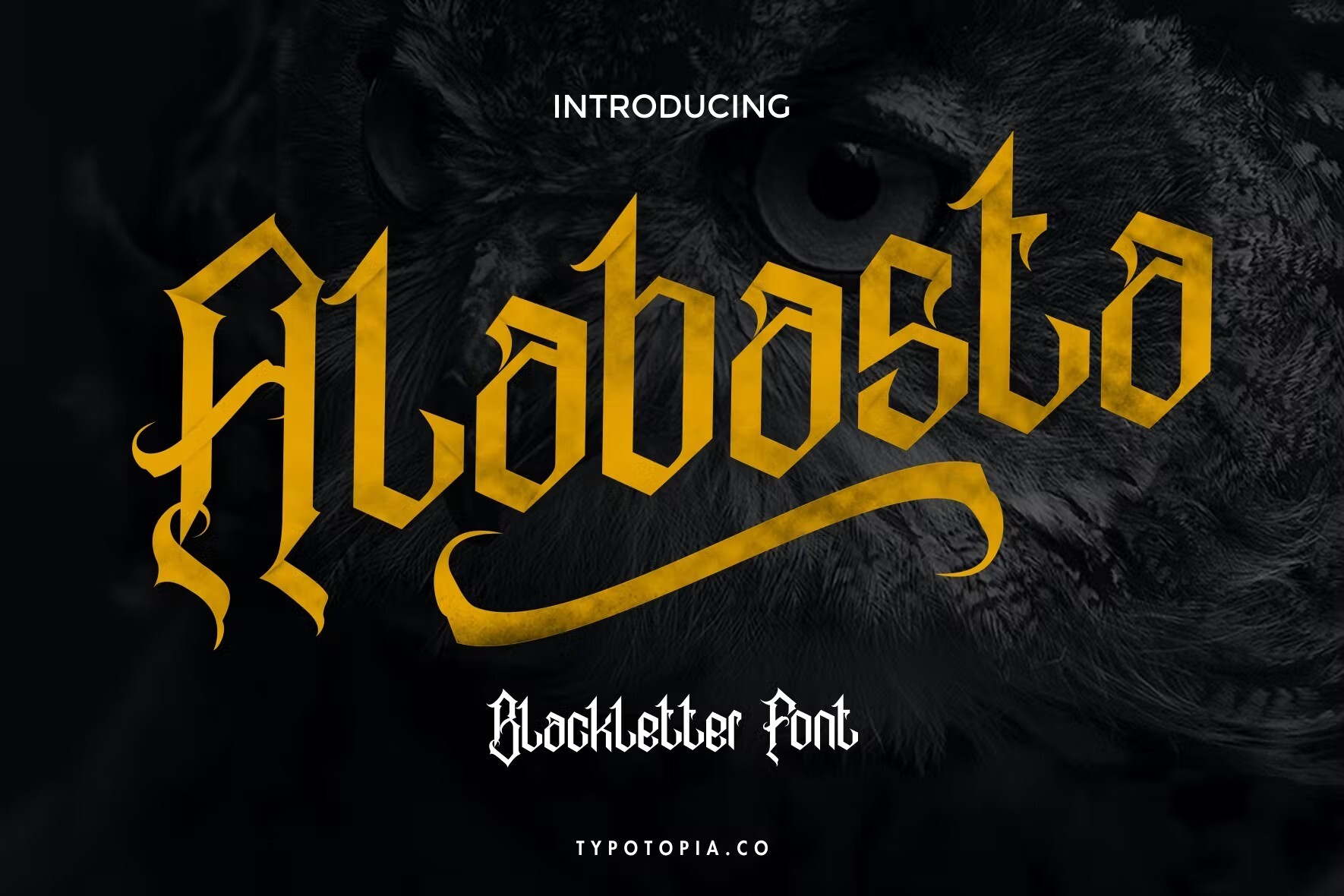
Alabasta – Old English Font
Alabasta is a unique Old English gothic font. It includes cool glyphs and alternates to make your design stand out. It’s fully accessible without additional design software. And it also includes multilingual support.
This is a good Old English font to download thanks to its numbers, and symbols. ligatures, and multilingual support. It will look great on tattoos and branding.
Tendencious – Old English Font
Tendencious is an Old English font with numbers. Give your designs a truly vintage look with this Victorian Old English font and take advantage of its best features, such as easy installation and complete punctuation.
Malcolm Naville – Old English Font
Malcolm Naville is a nice Old English font to download if you’re looking for a truly dark Gothic font. Use it for any creative project.
Cattedrale – Old English Font
This unique Old English typeface comes in four different styles, including uppercase, lowercase, currency symbols, punctuation, and multilingual support.
Aceking – Old English Font
Design your next big Gothic and epic novel title with this Old English typeface. It’s an Old English font with numbers and punctuation, easy to install.
Cameo – Old English Font
The design of this Victorian Old English font makes it a great option for branding, logos, and posters. Give it a go for your next design!
Odd Times – Old English Font
This Olde English lettering is inspired by old fracture calligraphy. It’s a great Old English font to download that will look awesome on everything.